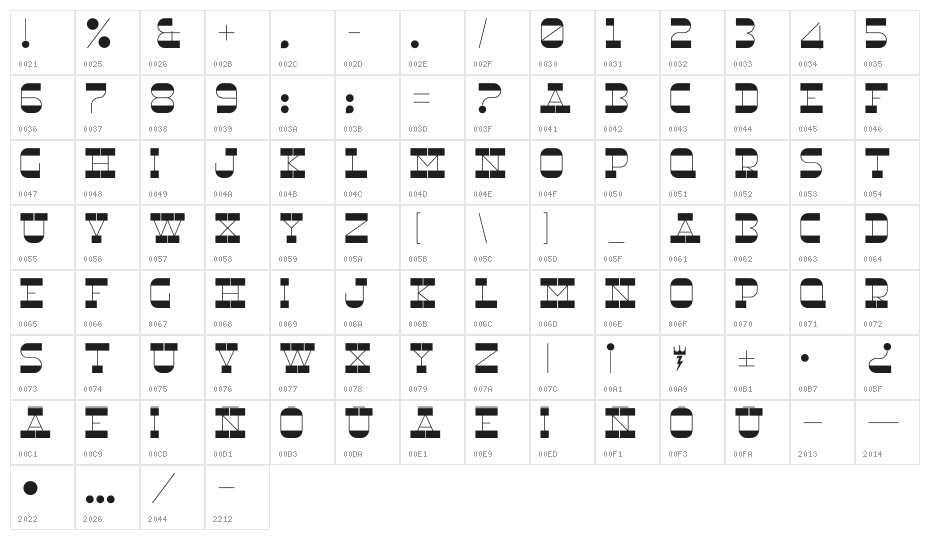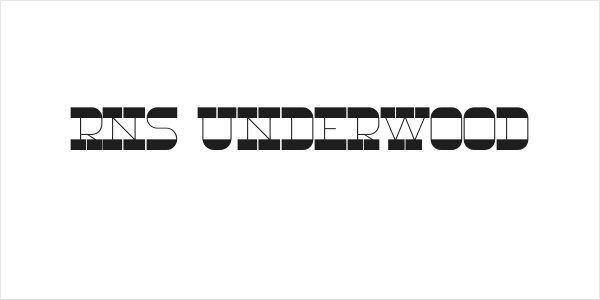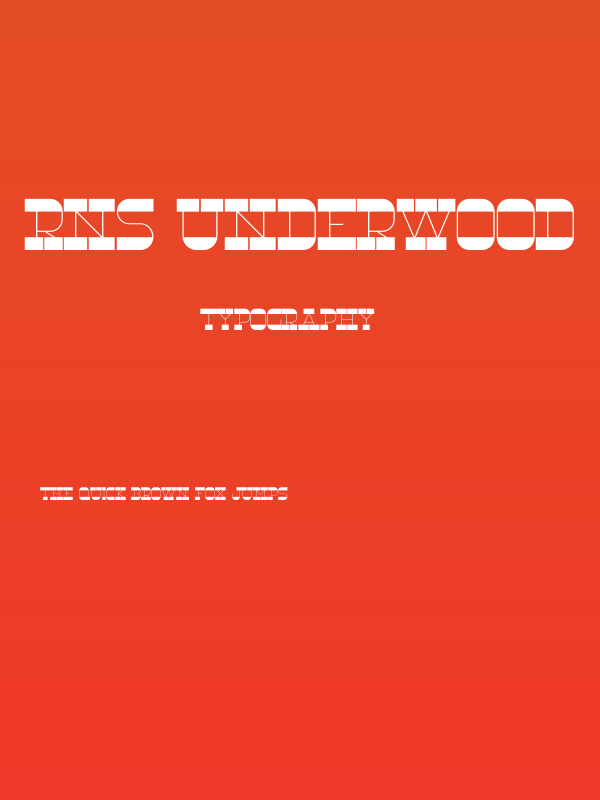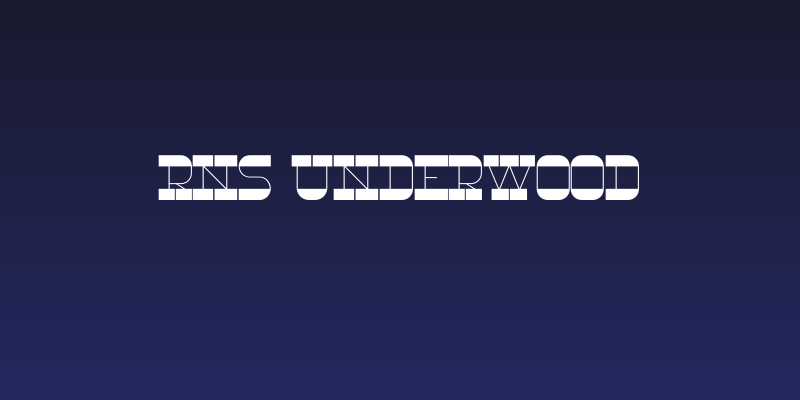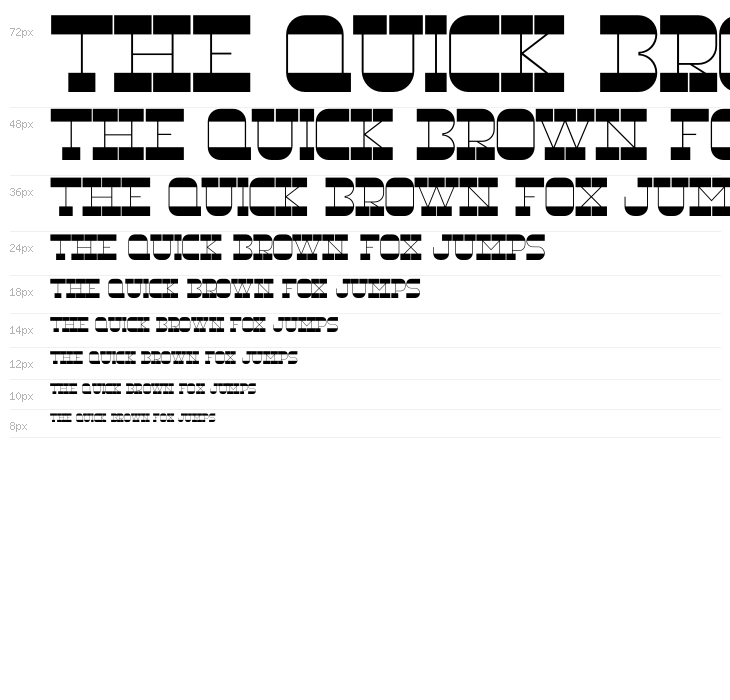
RNS Underwood Font
RNS Underwood Description
This font features a bold, geometric design with a strong emphasis on horizontal and vertical lines, creating a blocky and industrial appearance. The characters are constructed with thick strokes and sharp angles, giving them a modern and futuristic feel. The uppercase and lowercase letters maintain a consistent style, with a unique approach to letterforms that includes cutouts and negative space, adding to its distinctive look. The numerals and special characters follow the same design principles, ensuring uniformity across the typeface. This font's striking visual impact makes it suitable for attention-grabbing projects.
| Proposed Projects | Ideal for branding, posters, headlines, and any project requiring a strong visual impact. |